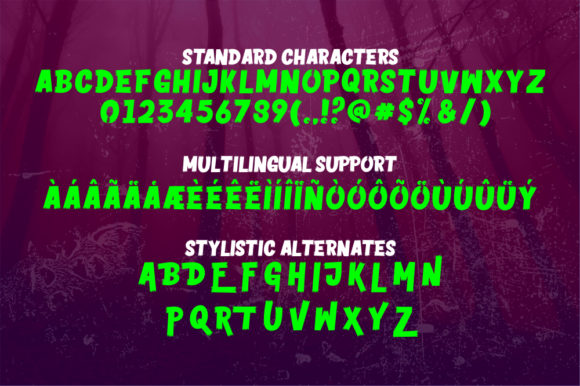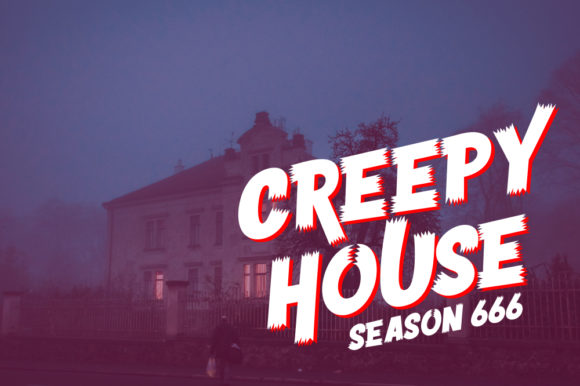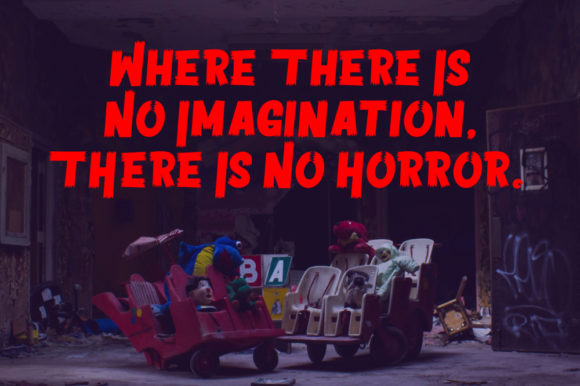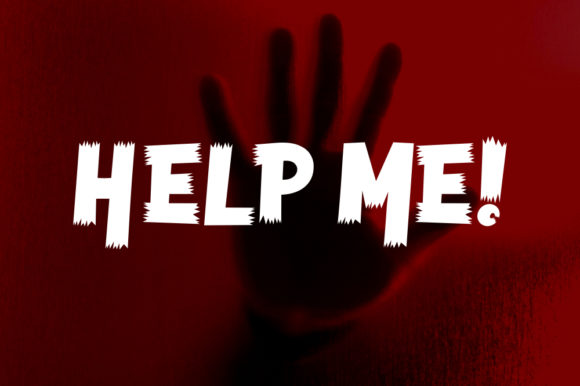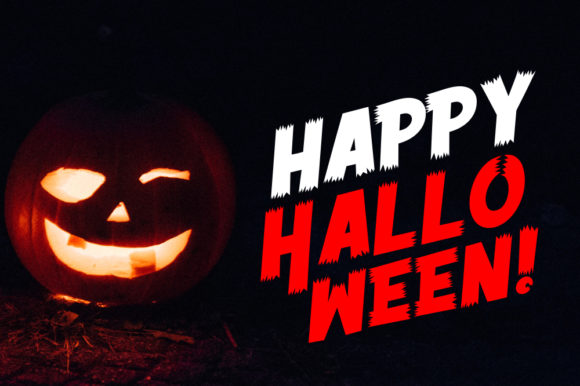
Introduction to Horror Vision Font
Have you ever been working on a creative project, pouring your heart and soul into every detail, only to feel like something’s missing? You know that spark that sets your project apart from the rest? That’s exactly what you get with the Horror Vision Font – a bold and unique display font that adds a touch of edginess to your design.
As a designer, you’re always on the lookout for high-quality design resources that can elevate your work and make it stand out. And that’s exactly what the Horror Vision Font offers. With its transparent background and sleek, modern design, this font is a game-changer for any creative project. Plus, it’s available for free download, making it an accessible resource for designers of all levels.
Whether you’re working on a horror-themed project or just want to add a touch of drama to your design, the Horror Vision Font is the perfect addition to your toolkit. So why settle for ordinary when you can have extraordinary? Get ready to unleash your creativity and take your designs to the next level with the Horror Vision Font.
Key Features of Horror Vision Font
- Transparent background: This font allows for seamless integration with any background, making it perfect for creative projects.
- High-quality design: The font features intricate details and a unique aesthetic, making it ideal for horror-themed projects.
- Unique characteristics: Horror Vision Font features a distressed, horror-themed aesthetic, complete with eerie textures and creepy details.
- Perfect for creative projects: This font is ideal for designers, artists, and writers working on horror-themed projects, such as book covers, posters, and more.
Honest Review: Horror Vision Font
I recently had the chance to try out the Horror Vision Font, and I have to say it’s been a real game-changer for my creative projects. The font is super versatile and works well for anything from spooky movie posters to creepy video game titles.
- ✨ High-quality design: The Horror Vision Font is incredibly detailed and looks amazing in high-resolution images. I love the intricate designs and the way it adds a touch of eeriness to any design.
- ✨ Transparent background option: Having the option to use a transparent background makes it super easy to integrate this font into my designs without any distractions.
However, there are a few limitations I’ve noticed. ⚠️ Limited font sizes: While the font is incredibly detailed, it’s not available in as many font sizes as I would like. This can make it a bit tricky to use in certain situations.
Overall, I’m really impressed with the Horror Vision Font. It’s a fantastic design resource that’s perfect for anyone looking to add a touch of horror to their creative project. With its high-quality design, transparent background option, and free download, it’s definitely worth checking out.
Designing with Horror Vision Font
For a transparent background, simply use the font on a transparent layer or set the background to transparent in your design software. This will give you a clean and eerie effect perfect for horror-themed projects.
Getting the Most Out of Horror Vision Font
For optimal results, use the Horror Vision Font in conjunction with other design elements, such as dark backgrounds, creepy textures, and eerie imagery.
The Horror Vision Font is ideal for horror-themed projects, including:
– Horror movie posters
– Spooky social media content
– Creepy graphics and illustrations
Q: Is the Horror Vision Font suitable for use in digital displays and video projects?
Yes, the Horror Vision Font is designed to be highly legible and suitable for use in digital displays and video projects. Its high-quality design and smooth rendering make it an excellent choice for use in a variety of creative projects, including those that require a high level of visual fidelity. However, please note that the font’s performance may vary depending on the specific display or video output settings used.